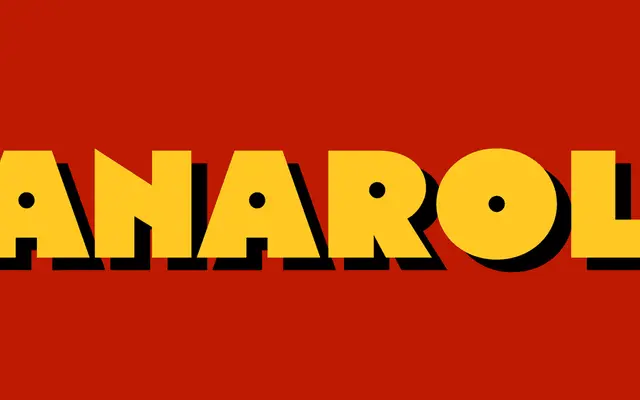
State Wide
A wide display typeface from Arkitype, a practice focused on sport, tech and music identity work, currently listed as coming soon.
State Wide is an upcoming release from Arkitype, an independent design studio whose output spans sport, beverage and music branding. The foundry specialises in bespoke typefaces built around brand systems, suggesting this is designed with identity applications in mind. No weights or specimen details are yet publicly available.
Listed under a design practice known for sport and identity work; the name and context suggest a wide, display-oriented sans intended for headlines and branding rather than body text.